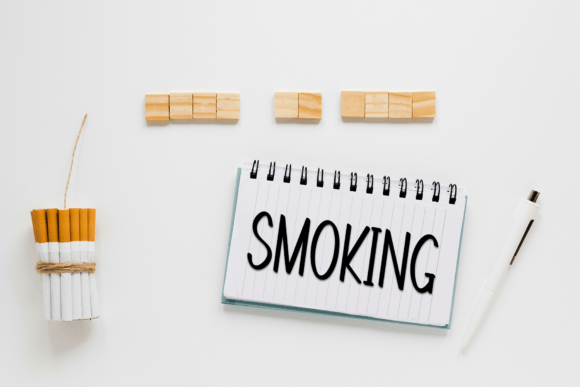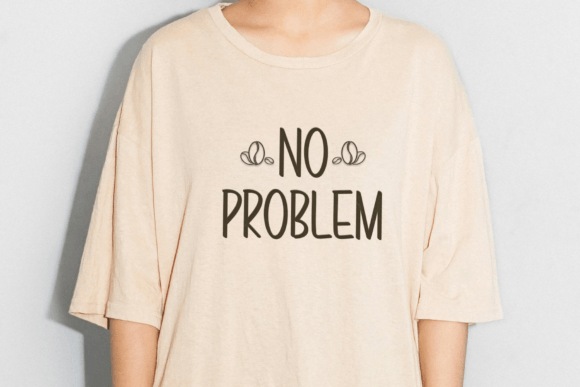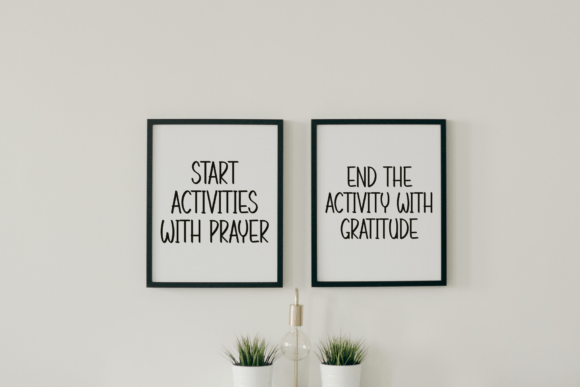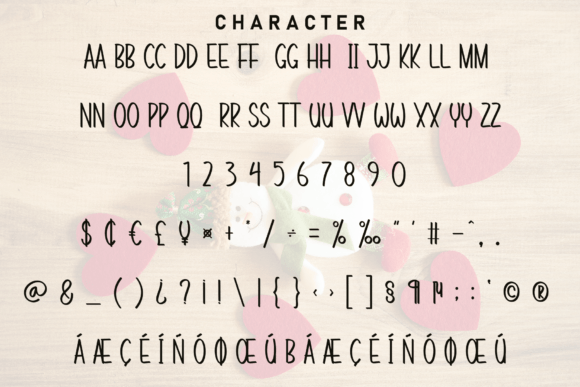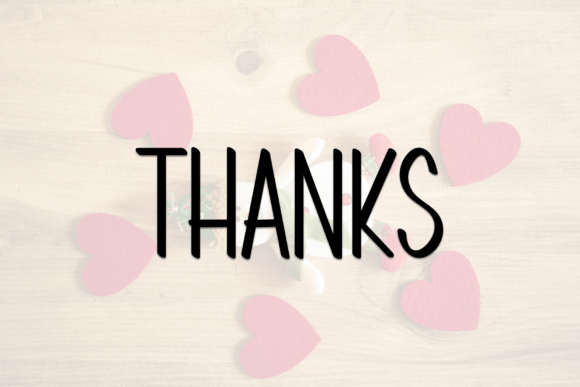
Introduction to Magic Newyear Font
As designers, we’ve all been there – staring at a blank canvas, waiting for the perfect spark to ignite our creative project. And sometimes, it’s not the latest design trends or software that sets our imagination ablaze, but a simple yet elegant font that brings our vision to life. For many of us, that spark has been the Magic Newyear Font, a stunning handwritten font that exudes a relaxed and sporty feel, perfect for branding, logos, and even wedding supplies.
What sets Magic Newyear Font apart is its unique, hand-drawn quality, reminiscent of a marker scribble on a transparent background. This makes it an invaluable design resource for creatives seeking to add a touch of luxury and elegance to their work, while still maintaining a casual, approachable vibe.
Key Features of Magic Newyear Font
- High-quality design resource ideal for creative projects, including New Year’s celebrations and winter-themed designs.
- Transparent background, making it suitable for overlaying on images or videos without a distracting background.
- Resolution-independent, ensuring crisp and clear rendering on various display devices and resolutions.
- Unique, festive design elements, such as glittering snowflakes and sparkling fireworks, to add a touch of magic to any project.
- Perfect for digital design projects, including social media graphics, web banners, and video titles.
Honest Review: Magic Newyear Font
As a designer, I was excited to try out the Magic Newyear Font for my latest creative project. The font is available as a free download, which is always a bonus for me.
What works well is the font’s unique design, which adds a touch of magic to any project. The transparent background option is also a plus, allowing me to easily customize the font to fit my design needs. The high quality of the font is evident in its crisp lines and well-defined characters.
- ✨ Unique design that adds a touch of magic to any project
- ✨ Transparent background option for easy customization
- ✨ High quality design with crisp lines and well-defined characters
However, I did encounter some limitations. The font is only available in a limited number of weights and styles, which may not be ideal for projects that require a wide range of font options.
- ⚠️ Limited number of weights and styles available
Overall, I would give the Magic Newyear Font 4 out of 5 stars. It’s a great design resource for those looking for a unique and high-quality font for their creative projects. While it may not be perfect, it’s definitely worth considering for your next design project.
The Magic Newyear Font is a free download design resource that offers a high-quality, unique font perfect for creative projects. Its transparent background makes it easy to integrate into various design applications.
For the best results, use the Magic Newyear Font in a design application that supports high-quality fonts. Experiment with different font sizes and colors to create a visually appealing design.
The Magic Newyear Font is perfect for creative projects, such as:
– Holiday-themed designs
– Party invitations
Compared to Magic Newyear Font, Open Sans is more straightforward and less decorative, but it offers a more professional and modern look that is suitable for a wide range of creative projects.
Is the Magic Newyear Font available for use in digital design projects?
Yes, the Magic Newyear Font is suitable for use in digital design projects, including websites, mobile apps, and video games. The font is designed to be high-quality and scalable, making it perfect for use on various screens and devices.